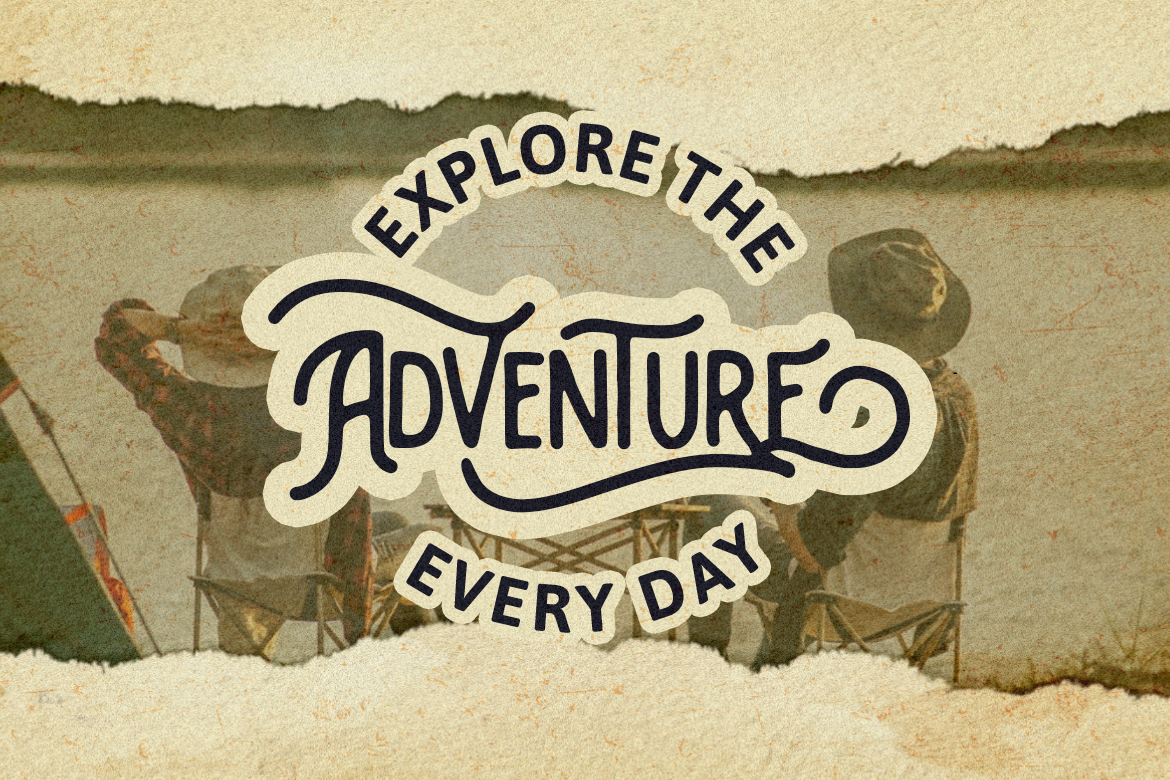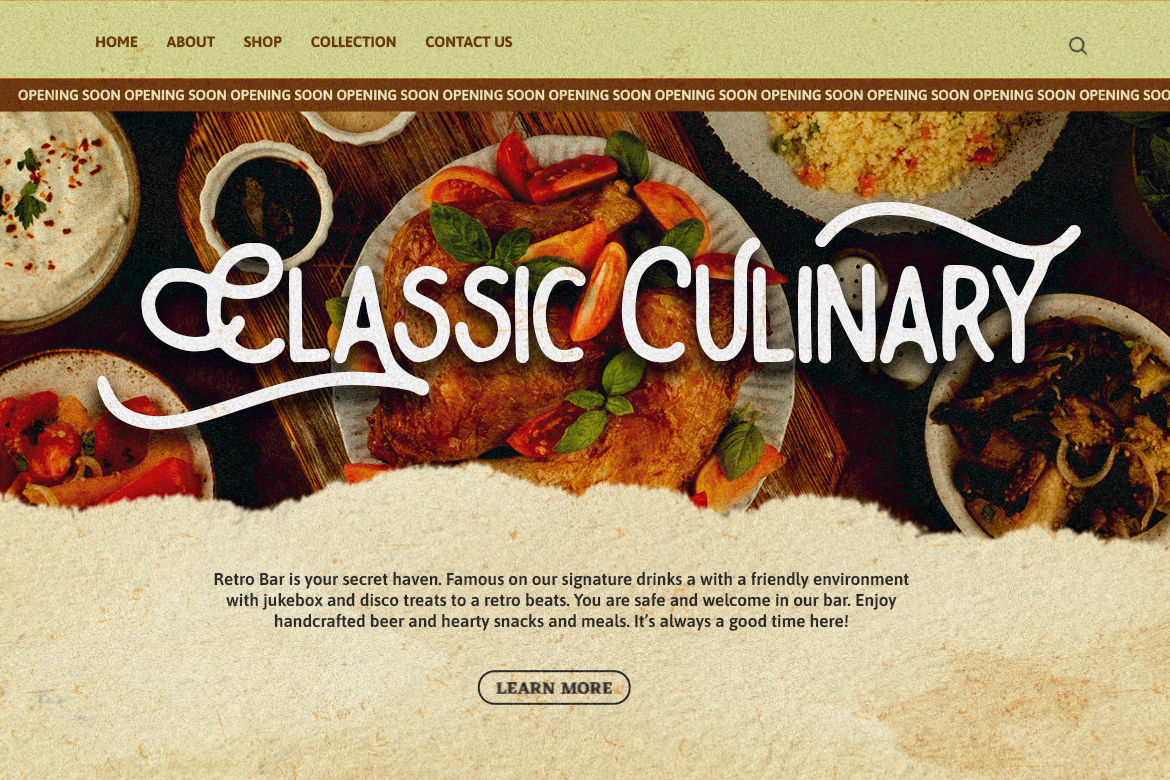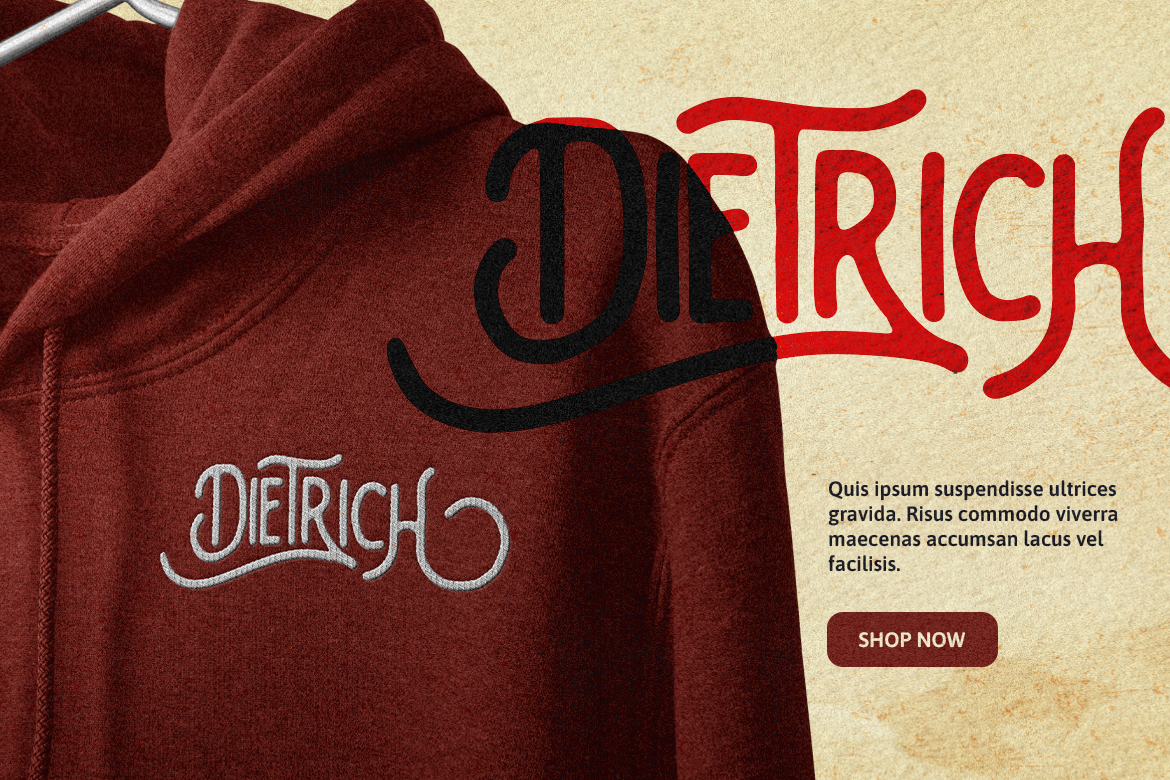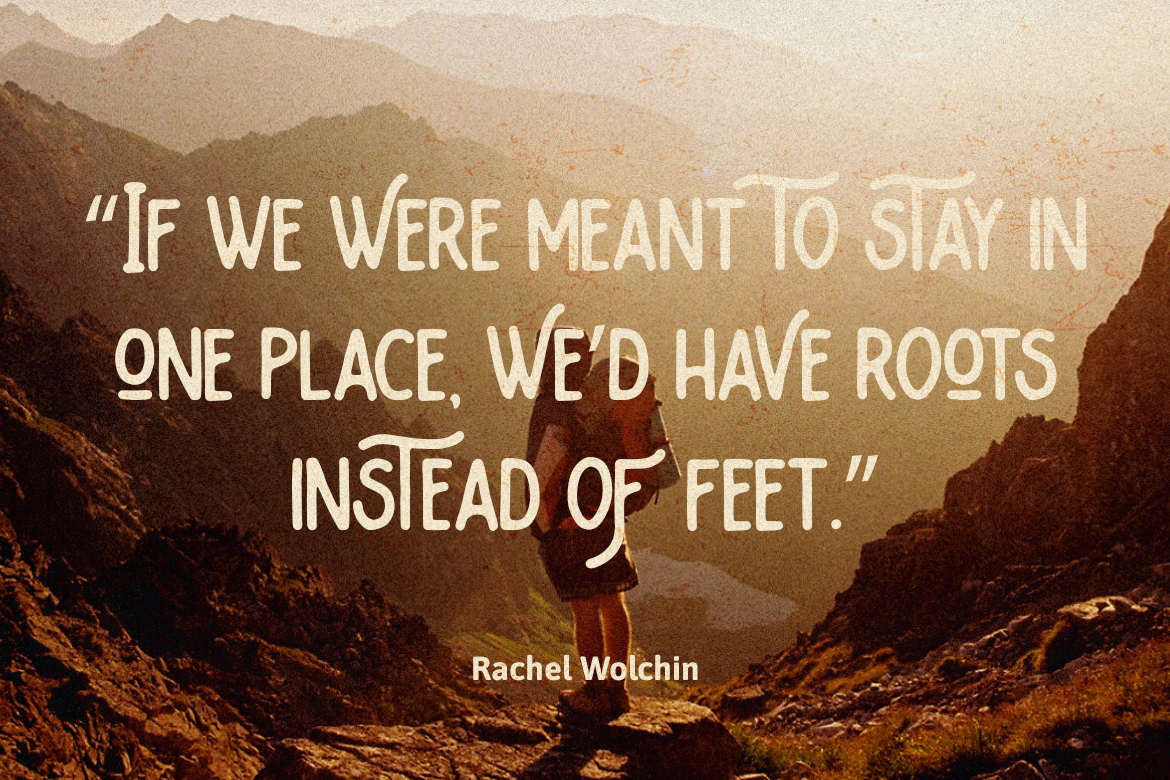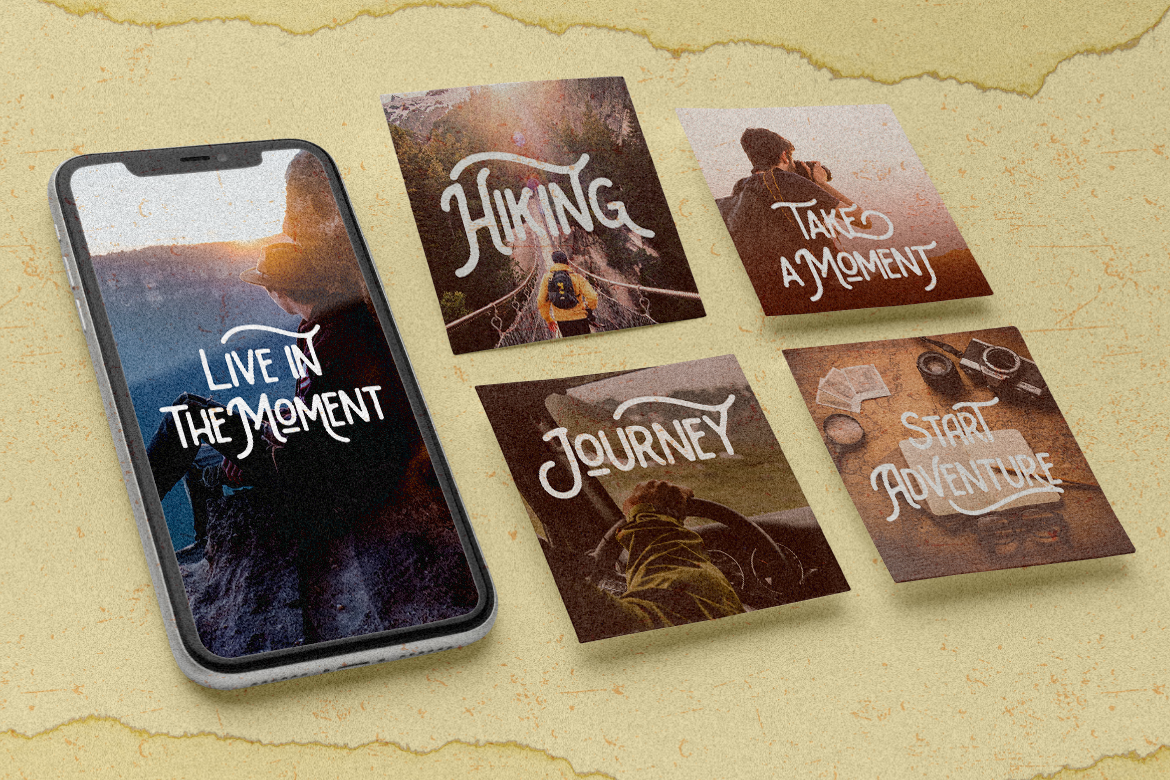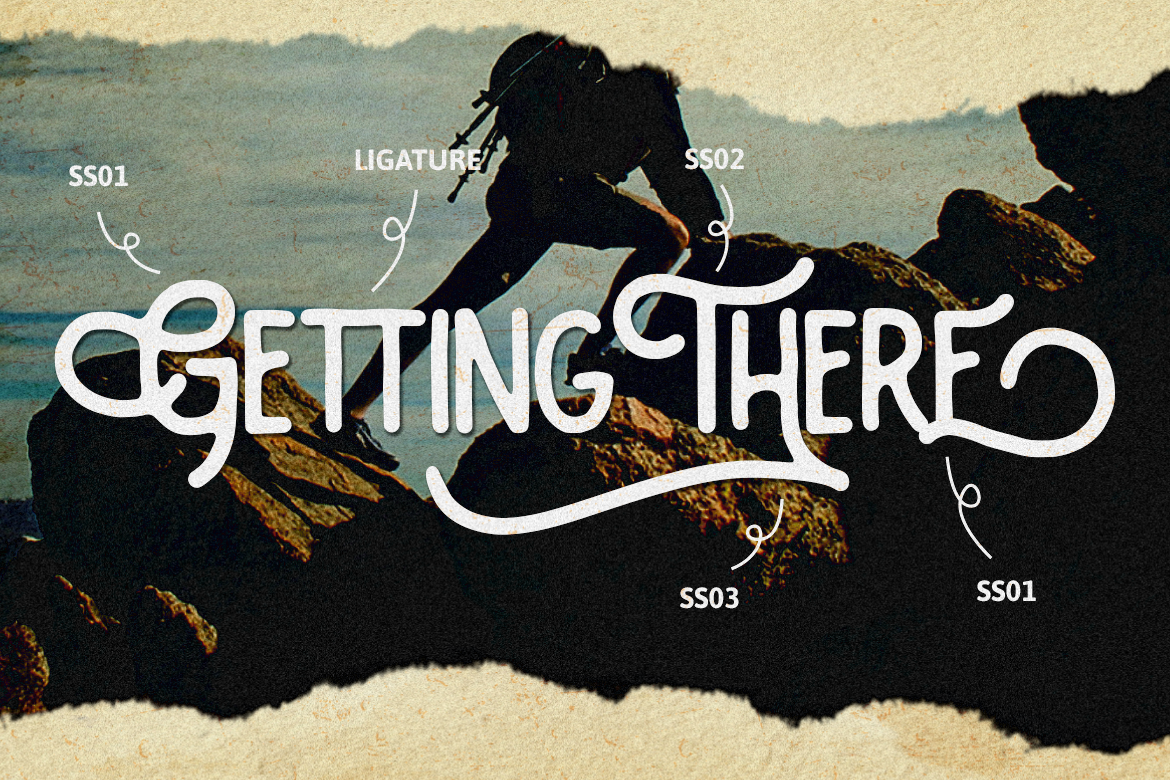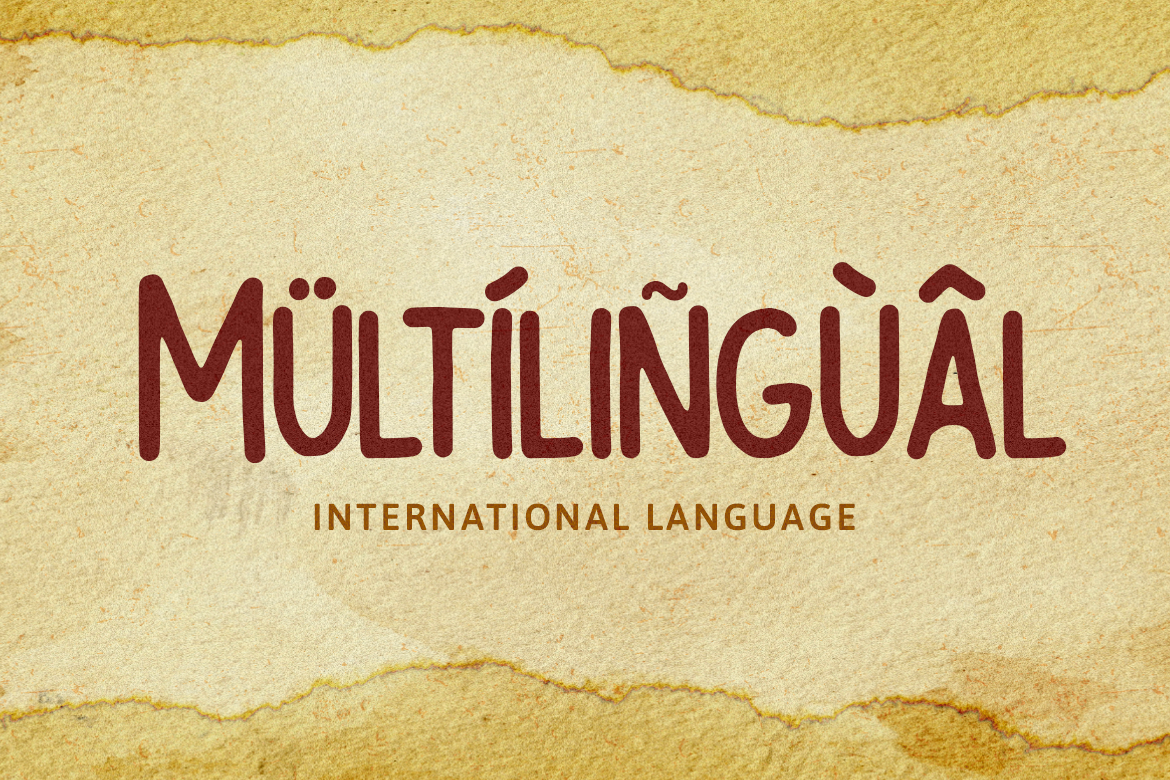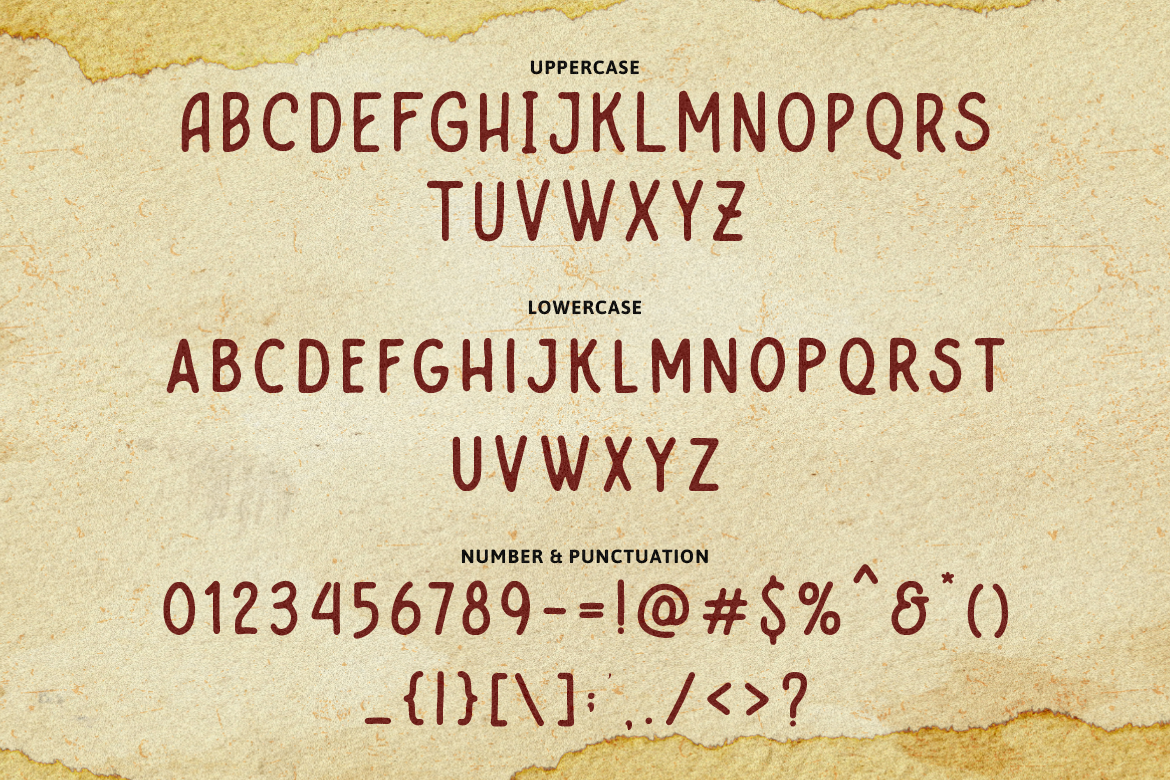
Santiago Vintage Monoline
Santiago is a vintage-look typeface that feels like all the good memories of the old days are flooding back to you. Creatype made this font to satisfy your design needs. You can use this for adventure content, food content, or even a logo.
Santiago is perfect for branding projects, logo, wedding designs, social media posts, advertisements, product packaging, product designs, label, photography, watermark, invitation, stationery and any projects that need handwriting taste.
- Fonts include multilingual support for; Afrikaans, Albanian, Czech, Danish, Dutch, English, Estonian, Finnish, French, German, Hungarian, Italian, Latvian, Lithuanian, Norwegian, Polish, Portuguese, Slovak, Slovenian, Spanish, Swedish.